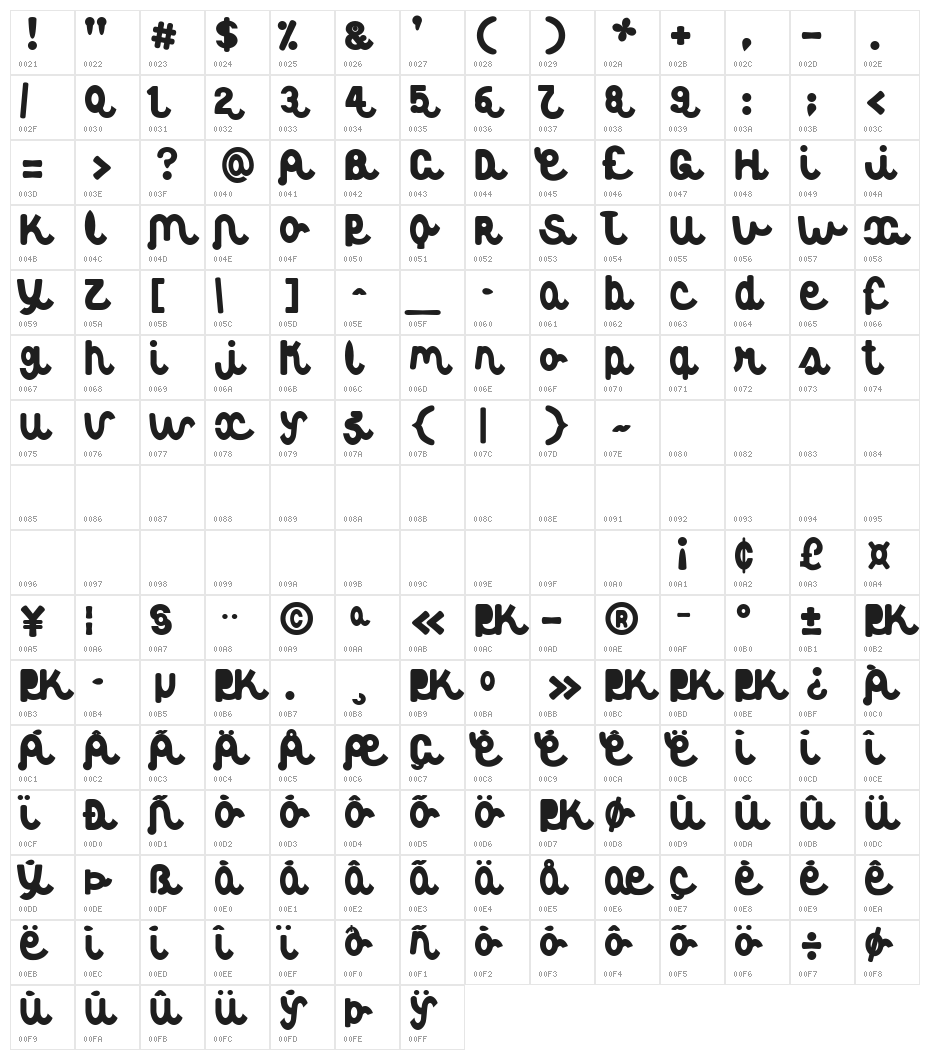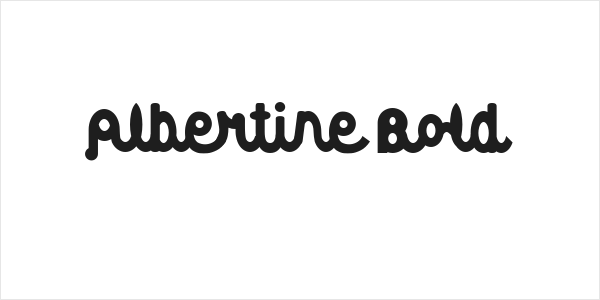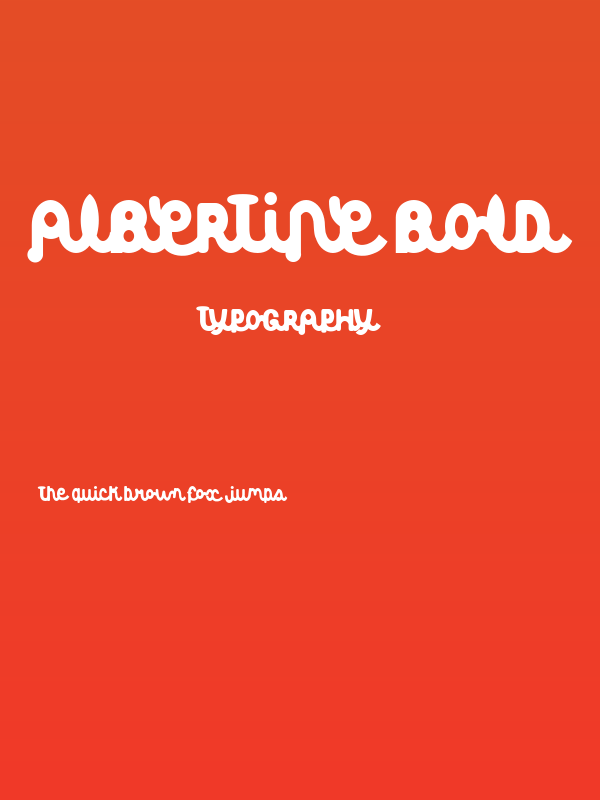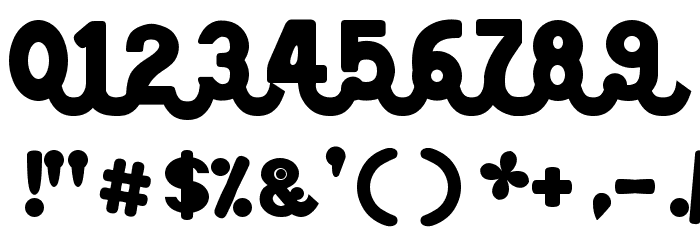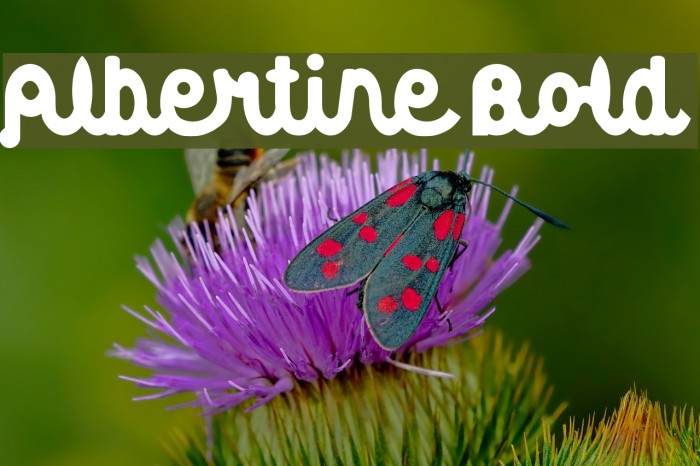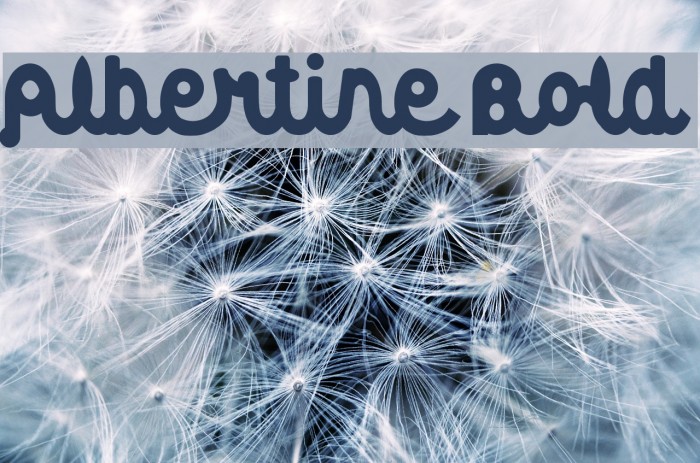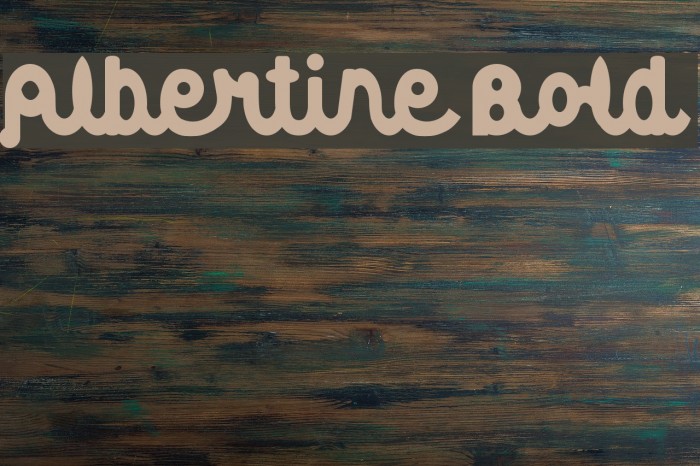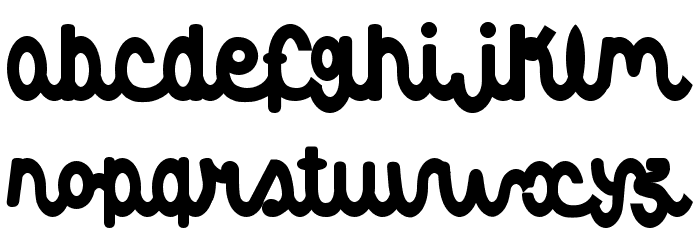
Albertine Bold Font
Albertine Bold Description
This font features a bold, playful script style with a continuous, flowing design that mimics handwriting. The characters are interconnected, creating a seamless and dynamic look. The bold weight enhances its visibility and impact, making it suitable for attention-grabbing designs. The rounded edges and smooth curves give it a friendly and approachable feel. The font maintains a consistent thickness throughout, contributing to its cohesive appearance. It includes a full set of uppercase and lowercase letters, numbers, and a variety of special characters, making it versatile for various design needs.
| Proposed Projects | Ideal for branding, posters, invitations, and any project requiring a lively, handwritten touch. |